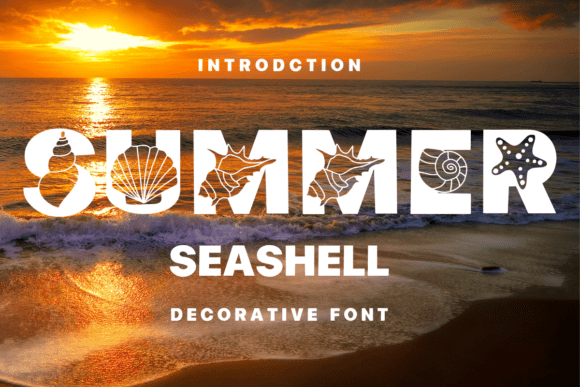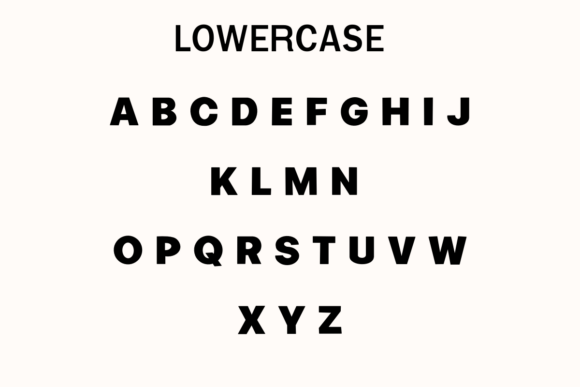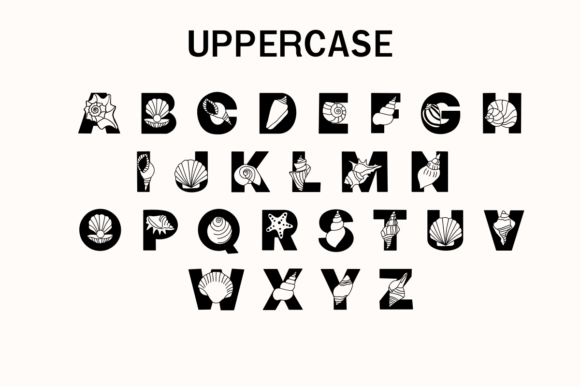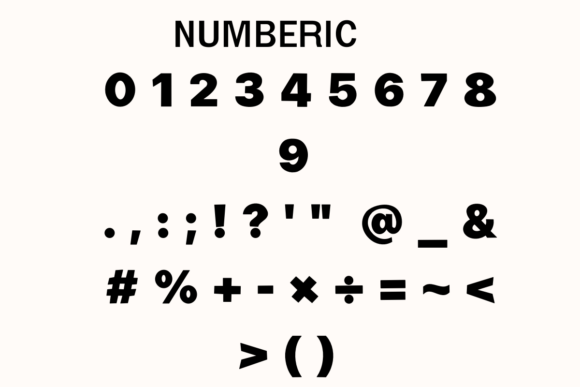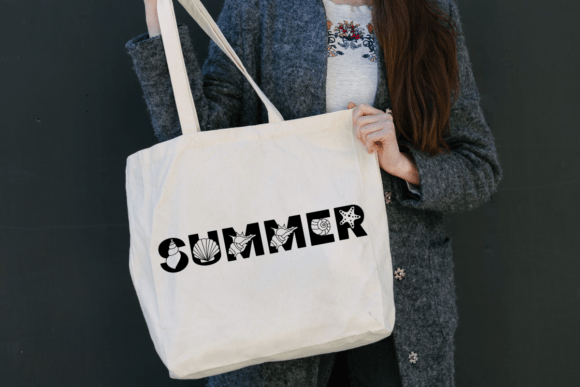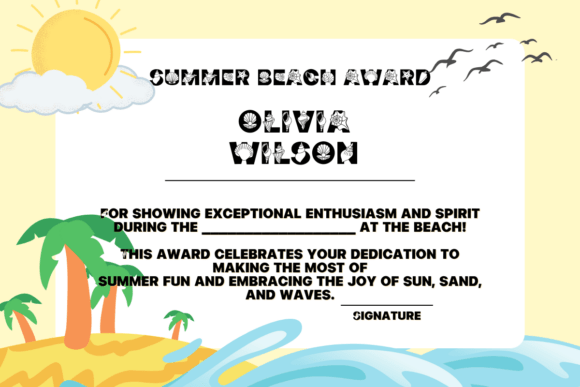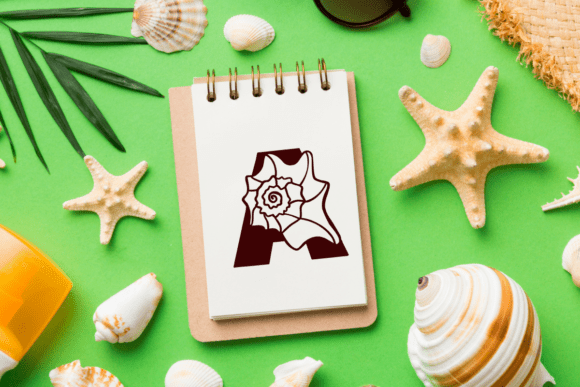
Summer Seashell Font
Summer Seashell is a decorative beach-themed font filled with coastal charm. Each letter is crafted with ocean elements like shells, starfish, and waves, making it perfect for summer designs, travel posters, or kids’ projects.